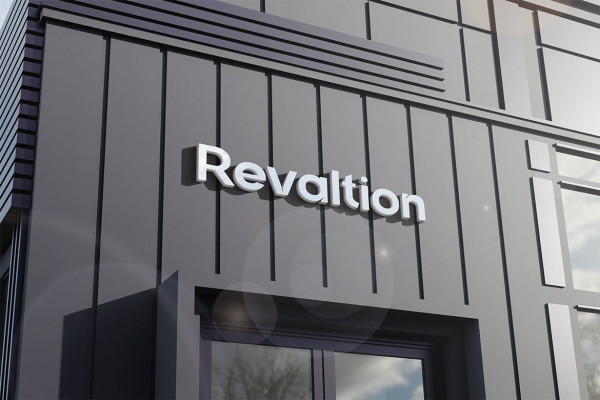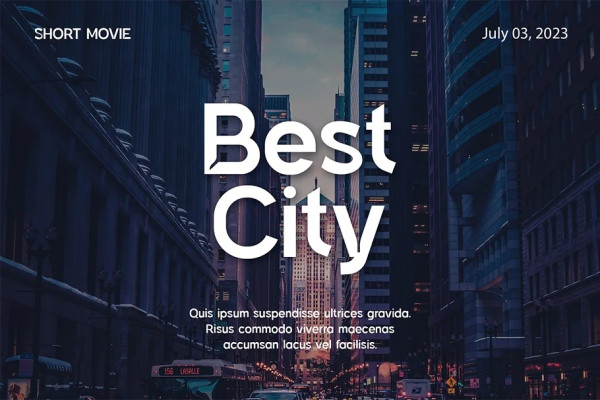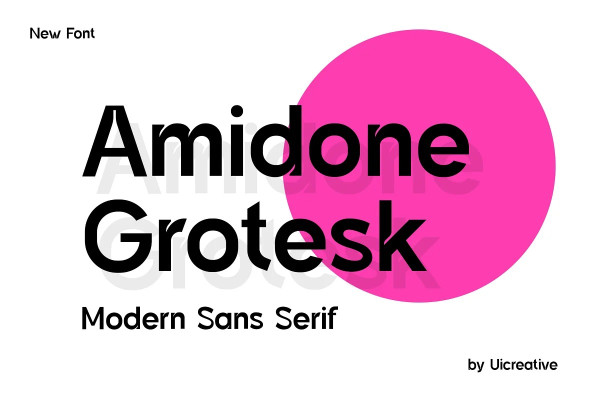
Amidone Font
Amidone Font – Grotesk Sans Serif Font. Modern Sans Serif font that feels beautiful classy, elegant, and modern. This font is ideally suited for a wide variety of projects, such as signature, stationery, logo, wedding, typography quotes, magazine or book covers, website headers, clothing, branding, packaging design, and more. Also, fashion-related branding or editorial design displays both masculine and feminine qualities.